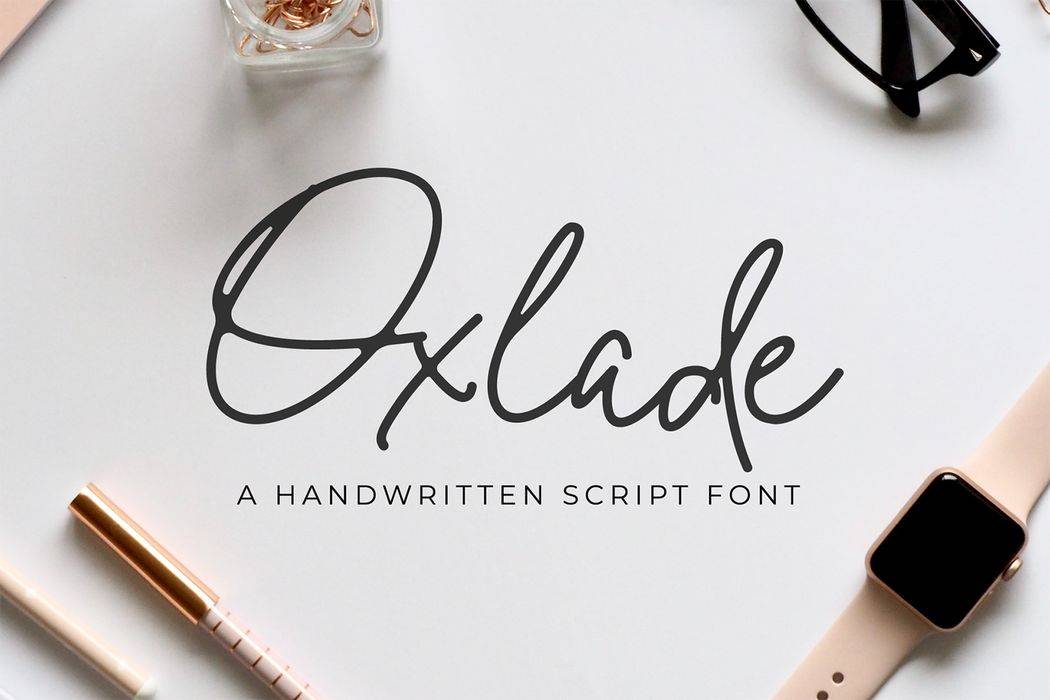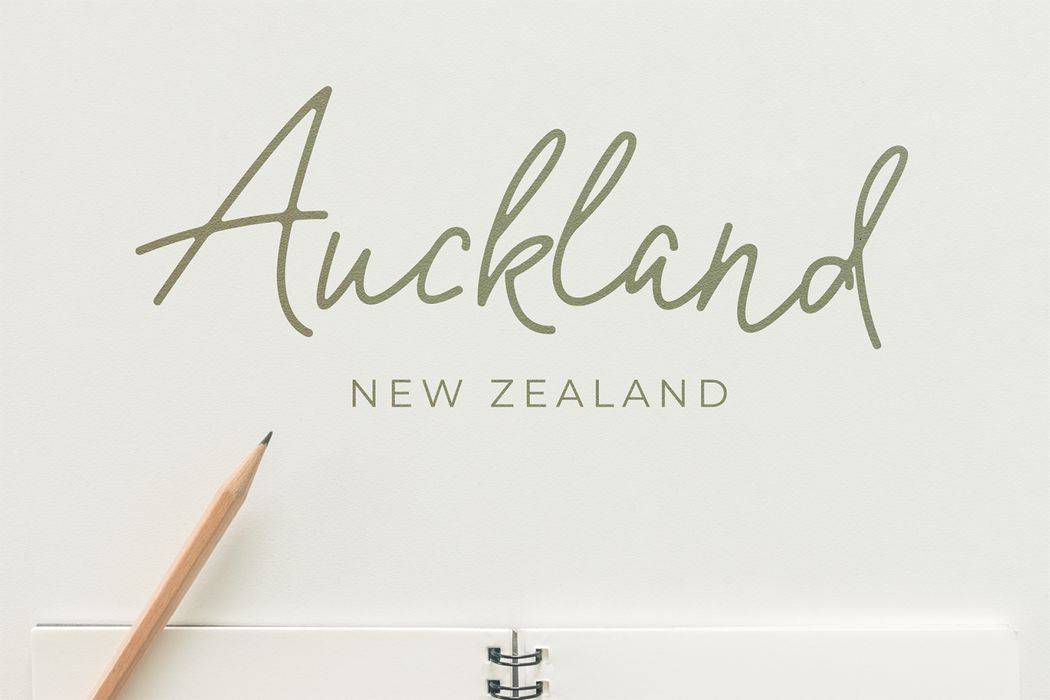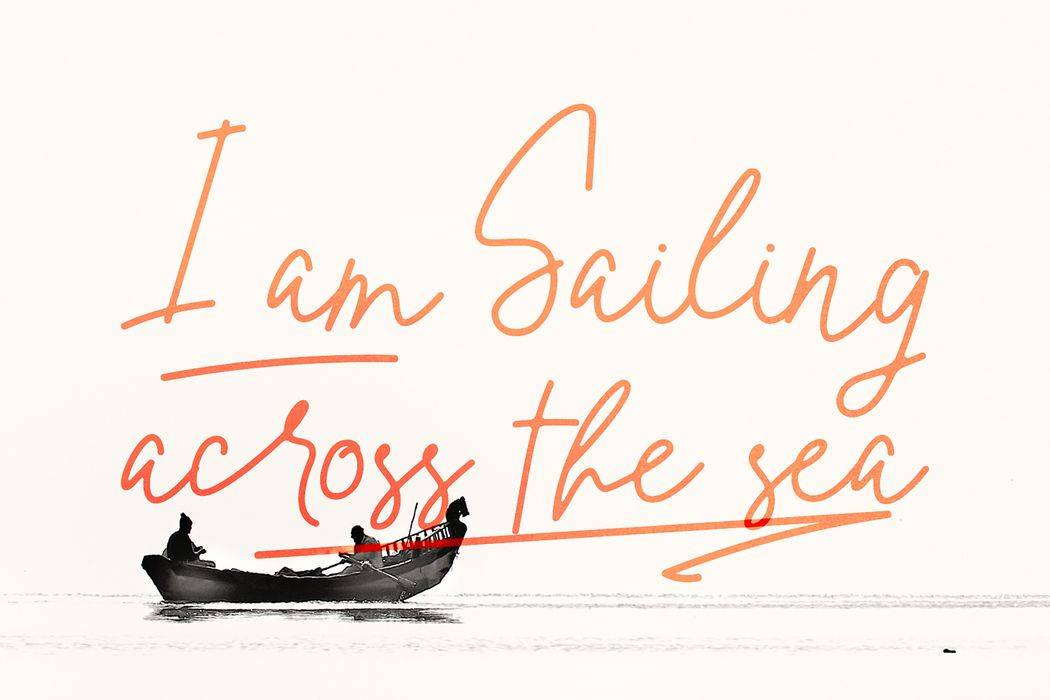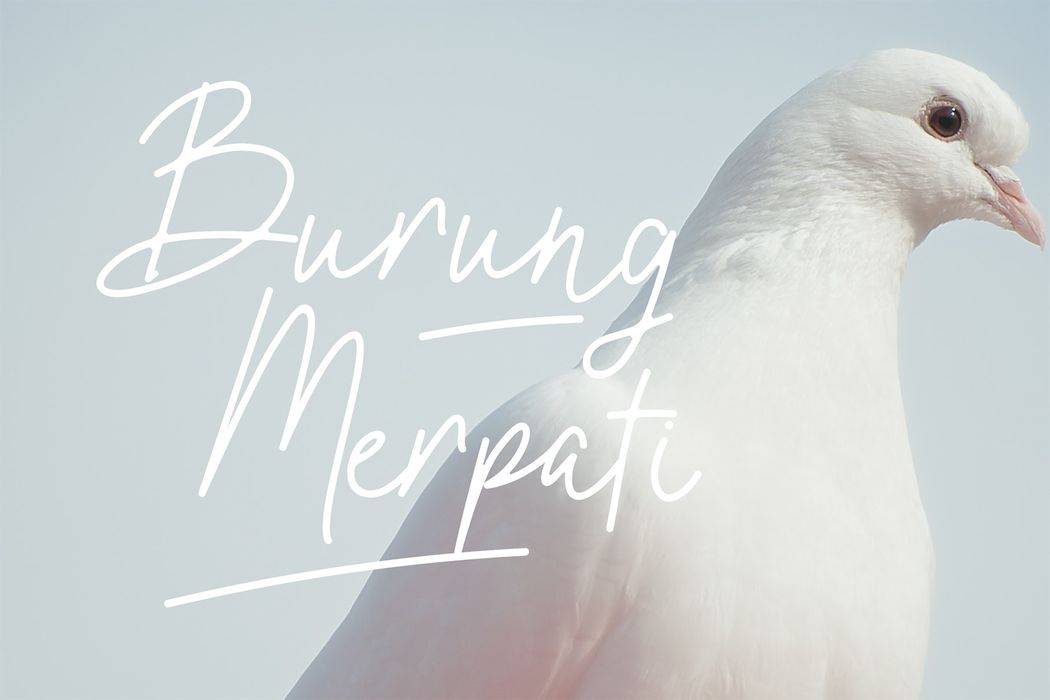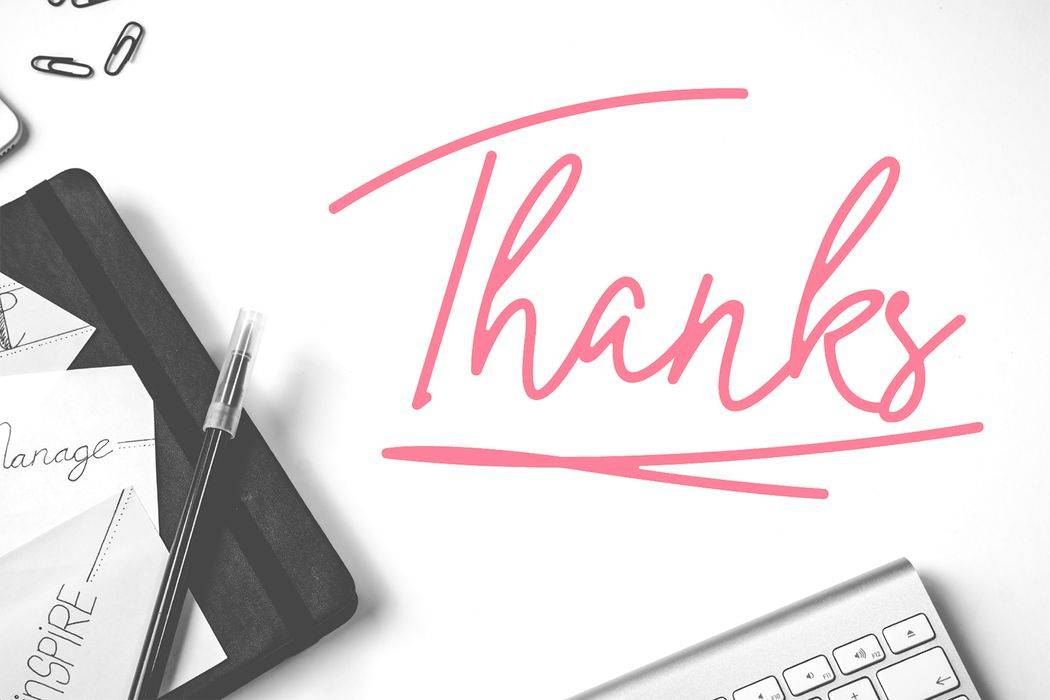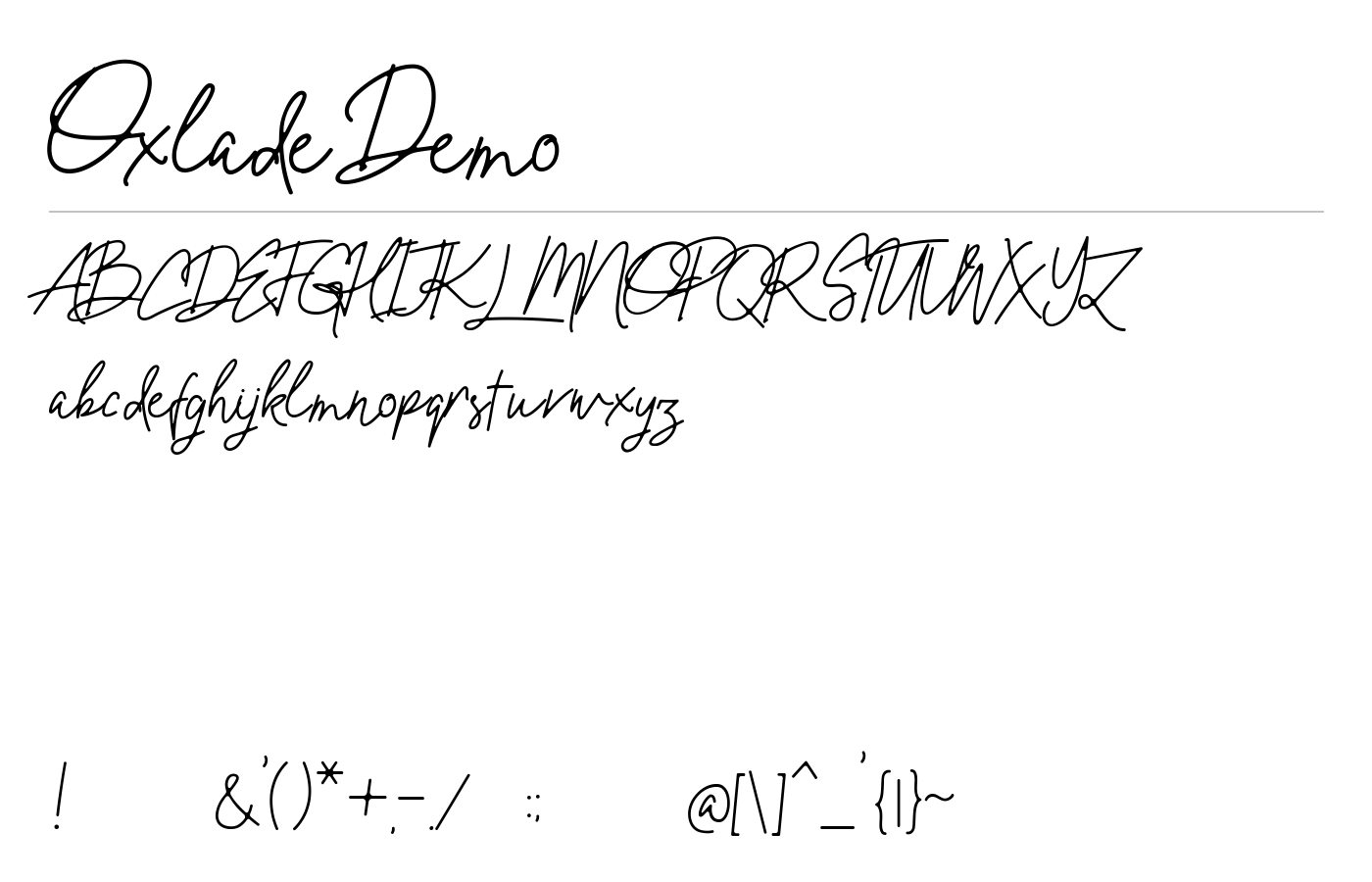
Oxlade is a lively, handwritten script font with a casual and personal feel, featuring thin, flowing strokes and a slightly irregular, natural rhythm. Its tall, narrow letterforms and elegant loops make it an excellent choice for creative branding, invitations, and expressive headlines where a touch of individuality and warmth is desired.
Oxlade Font
About Oxlade Font
| Font family | Oxlade Font |
| Designer | yellowline |